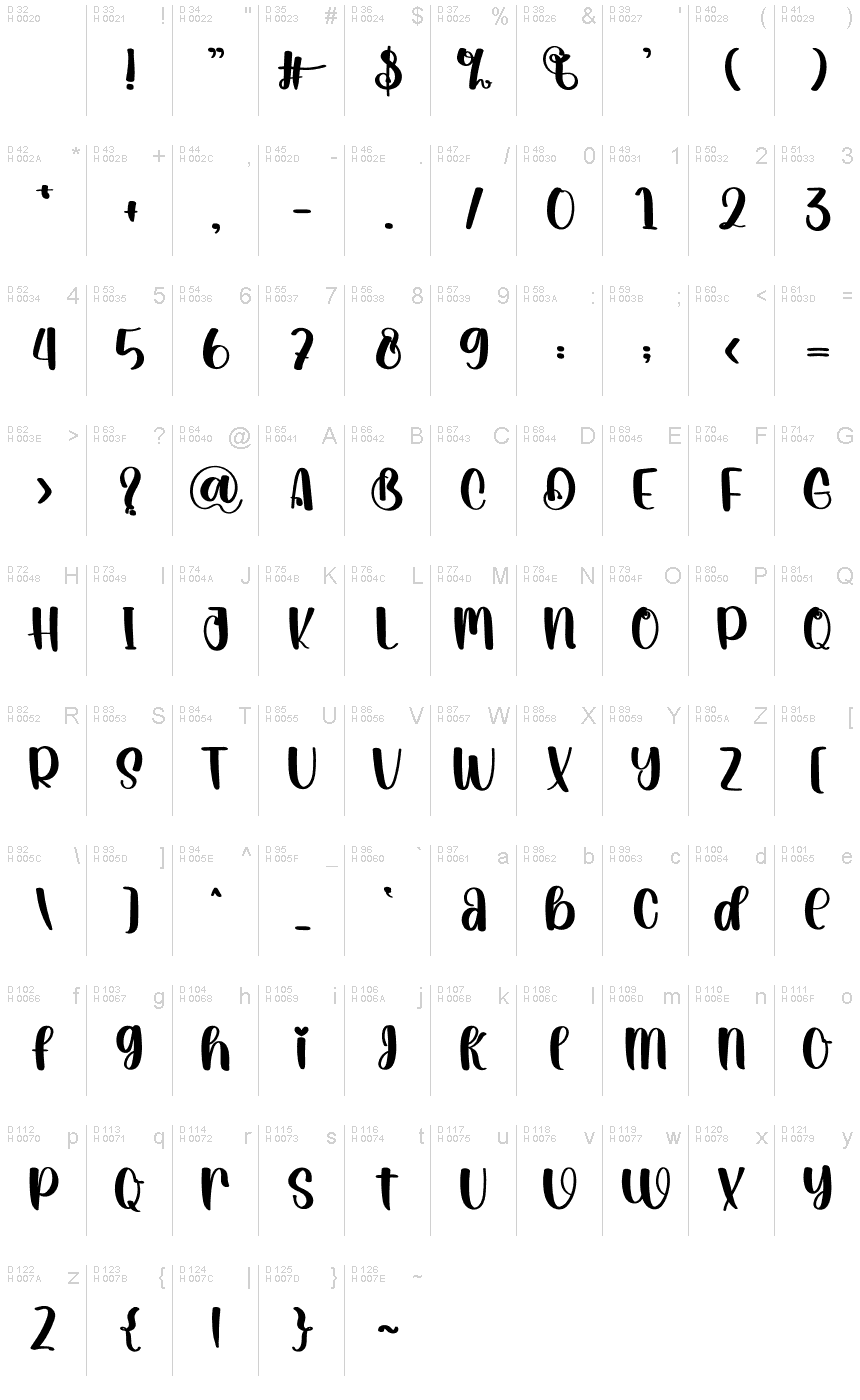
Swiming
Swiming, a charming creation by Inermedia Studio, is an exquisite smooth brush font that effortlessly combines elegance and playfulness. With its bold weight, this font adds a touch of confidence to any project.
Its cute and feminine style makes it perfect for designing Valentine's Day cards, wedding invitations, or even adorable baby shower announcements. Embrace the versatility of Swiming and let your creativity flow in creating delightful branding materials, stunning social media graphics, or whimsical children's book illustrations.
Let this font dive into your designs and bring them to life with its irresistible charm.